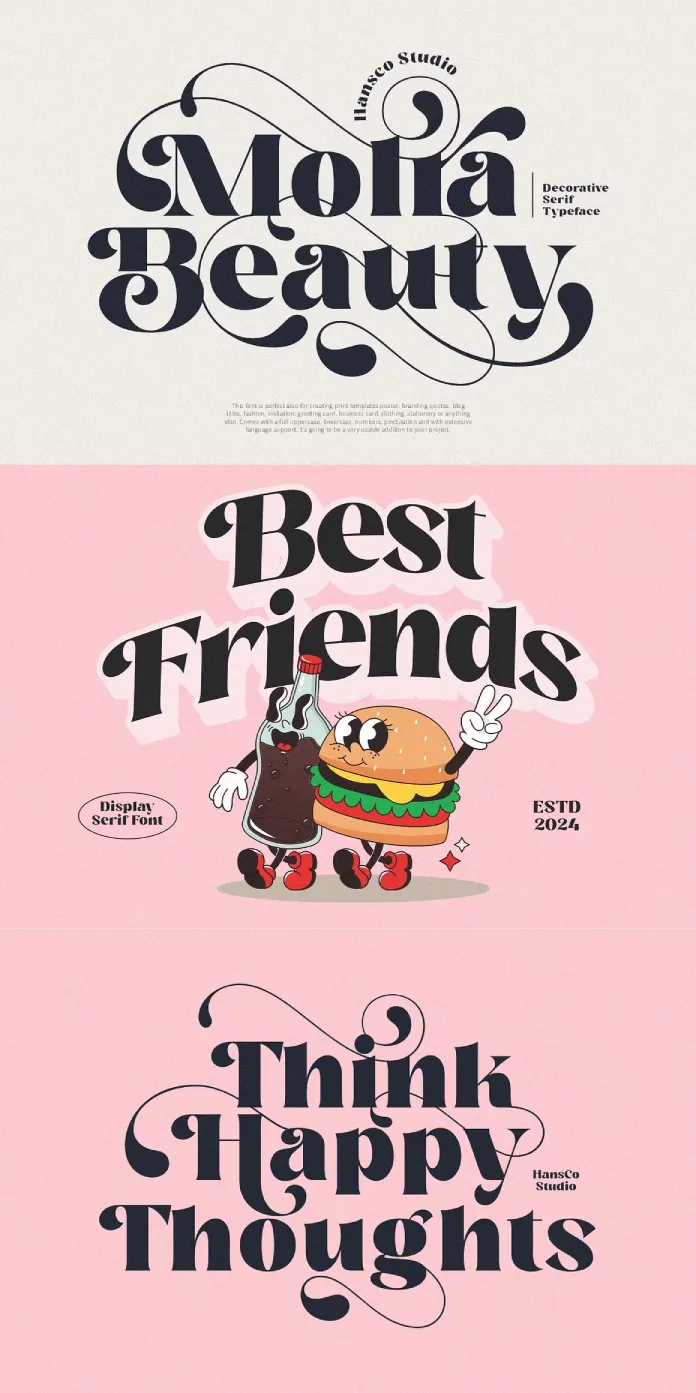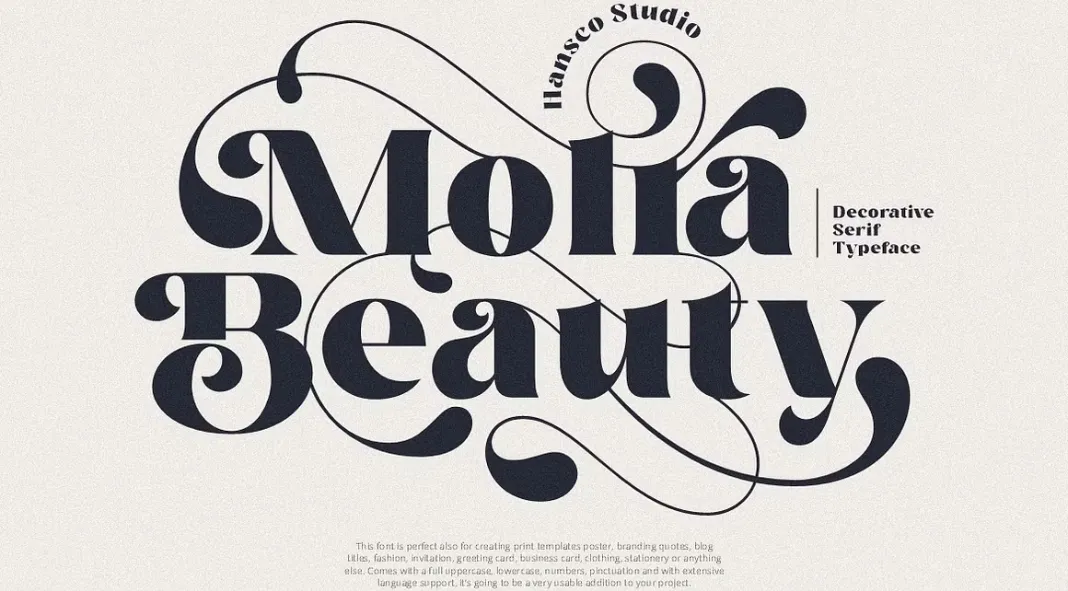
HansCo Studio has designed Molra Beauty, a font that represents a bold blend of retro and modern sensibilities. This serif typeface is marked by its casual yet sophisticated personality, making it a versatile option for both digital and print design applications. The balance between its playful swash characters and refined serifs gives Molra Beauty a dual character, appealing to a wide range of design needs, from logos and branding to packaging, invitations, and editorial layouts.
Aesthetic Versatility
Molra Beauty brings a sense of charm through its unique swashes and alternative characters. The font carries a distinct retro influence, reminiscent of mid-century serif typefaces, yet it manages to feel fresh and contemporary. This dynamic is particularly appealing in branding and identity design, where a modern edge is often required without losing touch with timeless elegance. The flowing swash elements in some characters give the font a whimsical, lighthearted feel that softens the rigidity typically associated with serif typefaces.
The overall casual tone of the font does not undermine its usability in professional contexts. Molra Beauty works exceptionally well for projects that require a balance between approachability and sophistication. For example, its flexibility makes it ideal for fashion brands, greeting cards, business stationery, and even lifestyle blogs. The smooth, flowing lines of the swashes make a bold statement, offering an additional layer of personality when used sparingly across designs.
Functionality and Features
From a functional perspective, Molra Beauty is designed with professional usability in mind. It offers a full set of uppercase and lowercase letters, numbers, punctuation marks, and extensive multilingual support—key attributes that make it adaptable to various languages and contexts. Additionally, the inclusion of ligatures and alternate glyphs further enhances the creative potential of the typeface, allowing designers to add a unique touch to their projects.
Applicability Across Media
The strength of Molra Beauty lies in its ability to transition seamlessly across different media. Its retro-modern style is particularly effective in print applications—such as posters, book covers, and packaging—where the expressive swashes can take center stage. However, it is equally functional in digital spaces. Its legibility at various sizes, combined with its distinctive character, makes it suitable for websites, blog titles, and even social media branding.
Furthermore, the font’s balance of readability and personality maintains its integrity when scaled down, making it an excellent choice for business cards and other small-format designs. Its wide range of stylistic options, including alternates and swashes, also allows designers to create cohesive and engaging brand systems with minimal effort.
Molra Beauty by HansCo Studio is a fine example of modern design’s growing retro revival trend. Its combination of playful swashes, alternative characters, and refined serifs gives it a distinctive edge, making it both visually appealing and highly functional. Whether used for branding, editorial design, or packaging, Molra Beauty offers designers the flexibility and aesthetic versatility to create impactful and professional results. With its extensive language support, ligatures, and alternates, this font is an indispensable tool for anyone looking to infuse a touch of elegance and charm into their projects.